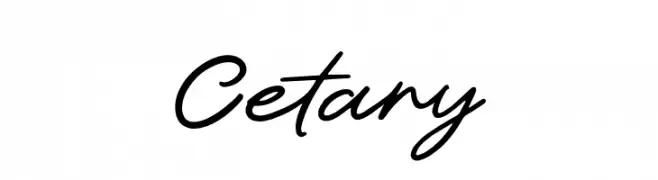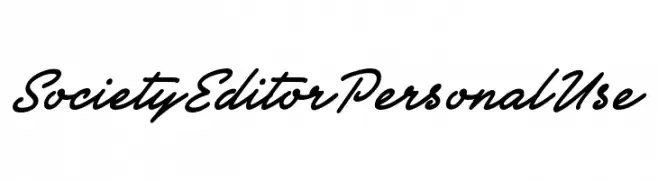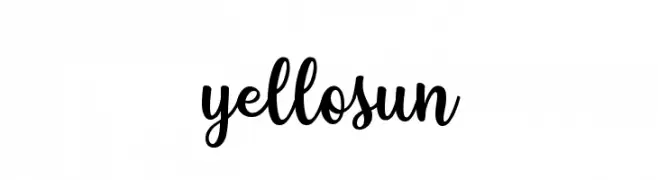
A graceful, handwritten font with elegant curves and fluid strokes.
A graceful handwritten font with fluid, connected letterforms and a sophisticated style.
A modern, cursive font with elegant, flowing letterforms and dynamic stroke contrast.
A flowing, cursive font with elegant, interconnected strokes.
A casual, handwritten script font with a smooth, flowing style.
A cursive, handwritten font with elegant loops and swashes.
A graceful script font with flowing, cursive strokes and elegant curves.
A cursive, handwritten-style font with elegant, flowing characters.
An elegant, flowing script font with a natural handwritten style.
An elegant script font with flowing, cursive letters and intricate details.